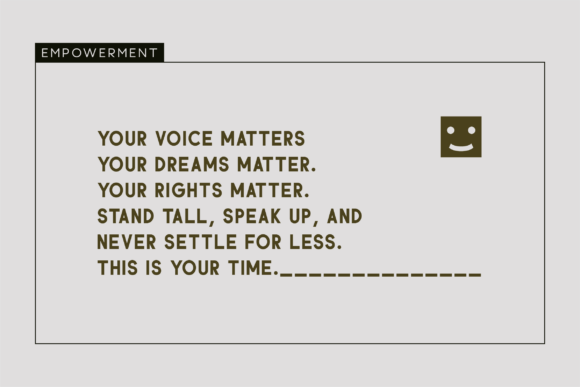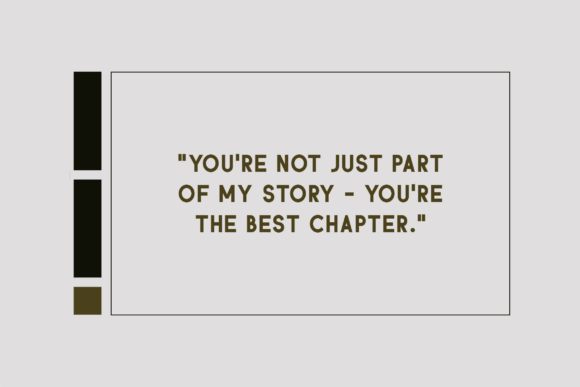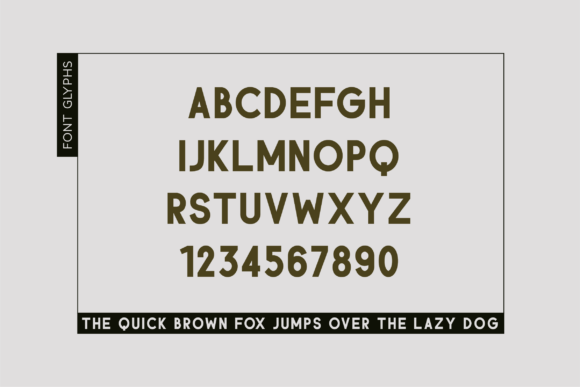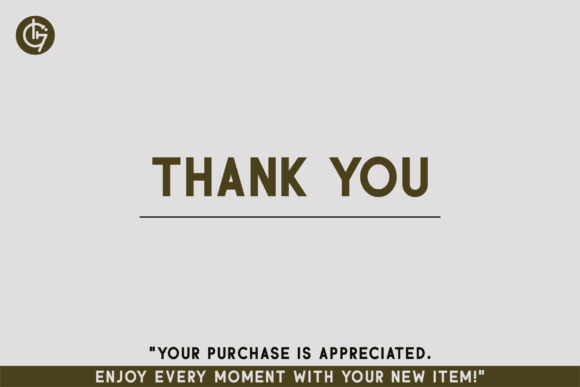
Introduction to Lamcouse Font
As a designer, you know the thrill of finding the perfect font to elevate your creative project. The moment when everything comes together, and your design takes on a life of its own. For many of us, this moment is what makes all the hard work worth it. But what happens when you’re stuck in a sea of mediocre fonts, and you can’t quite find the one that speaks to your vision?
Enter Lamcouse Font, a modern sans serif typeface that’s about to change the game. With its clean lines, minimalist aesthetic, and bold, all-caps design, Lamcouse Font is the ultimate design resource for any creative project. Whether you’re designing a logo, website, or print material, Lamcouse Font is the perfect choice for anyone looking to make a statement with their design.
What sets Lamcouse Font apart is its unique combination of style and functionality. With a transparent background and high-quality design, this font is perfect for both digital interfaces and high-end branding. And the best part? It’s available for free download, making it an accessible and valuable resource for designers of all levels.
Key Features of Lamcouse Font
- Unique and stylish design makes it ideal for artistic and creative projects
- Perfect for designers looking for a high-quality, free design resource to enhance their creative project
Honest Review: Lamcouse Font
As a designer, I’m always on the lookout for high-quality design resources to elevate my creative projects. The Lamcouse Font has been a recent addition to my design arsenal, and I must say it’s been a game-changer.
- ✨ The font’s transparent background allows for seamless integration with any design, giving me complete creative control.
- ✨ The font’s sleek, modern design makes it perfect for a wide range of creative projects, from digital to print.
- ⚠️ The Lamcouse Font may not be the best choice for projects requiring a more traditional, serif font.
- ⚠️ The font’s minimalist design may not appeal to designers who prefer a bolder, more statement-making font.
Overall, I’m thoroughly impressed with the Lamcouse Font. Its high quality and versatility make it a valuable addition to any designer’s toolkit. If you’re looking for a reliable, free design resource, I highly recommend giving the Lamcouse Font a try.
Tips for Getting the Most Out of Lamcouse Font
To get the most out of Lamcouse Font, experiment with different font sizes, colors, and combinations. This will help you achieve a unique and eye-catching design. Additionally, consider pairing the Lamcouse Font with other design resources to create a cohesive and visually appealing creative project.
Common Use Cases for Lamcouse Font
Lamcouse Font is ideal for a variety of creative projects, including graphic design, digital art, and even web design. Its high-quality design and transparent background make it perfect for creating visually appealing and professional-looking designs.